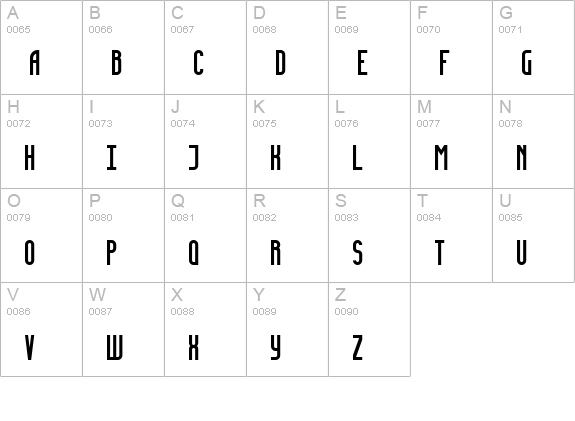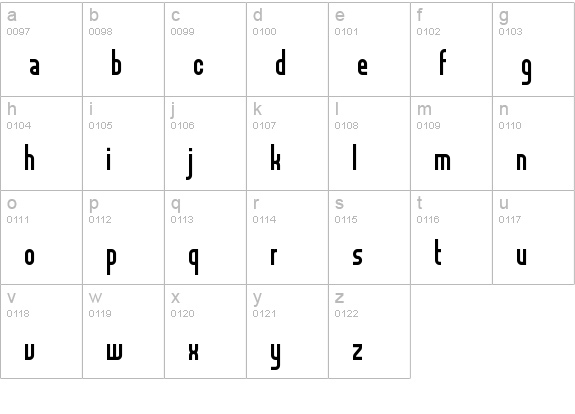
Fidelity Normal is the standard, neutral variant in the Fidelity typeface family \xE2\x80\x94 well suited to general body text, paragraphs, and standard typographic work.
Fidelity Normal font is a versatile and modern typeface that exudes elegance and sophistication. With its clean lines and balanced proportions, this font is perfect for a wide range of design projects, from branding to editorial layouts. The Fidelity Normal font is available for free download at FontsMarket.com, making it easily accessible for designers looking to add a touch of refinement to their creations. Whether used for headlines, body text, or logos, Fidelity Normal is sure to make a lasting impression with its timeless aesthetic and readability. Add a touch of class to your designs with Fidelity Normal font today!